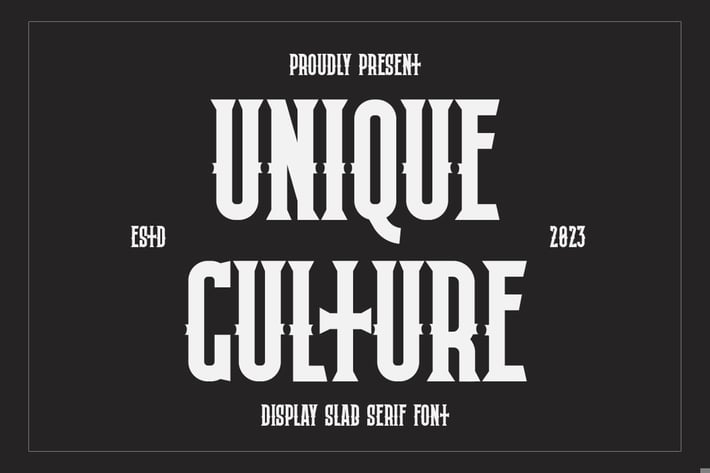
Unique Culture – Western Slab Serif Display Font
Unique Culture is a bold western slab serif display font that blends rugged elegance with classic Americana spirit. With thick slabs, high contrast, and decorative touches, it’s perfect for vintage logos, whiskey labels, western posters, and bold headlines.
Whether you're designing for heritage brands or frontier-style aesthetics, this font brings distinct character to your designs.
Key Features:
- Strong slab serif style with western influence
- Great for labels, packaging, signage, and logos
- Decorative yet bold with high legibility
- Perfect for vintage, rustic, or themed branding
- All caps, numerals, and basic punctuation
- Professionally kerned and balanced spacing
Unique Culture captures a spirit of heritage, strength, and handcrafted design.
Add a strong and vintage touch to your projects with Unique Culture – a bold and stylish western slab serif font.